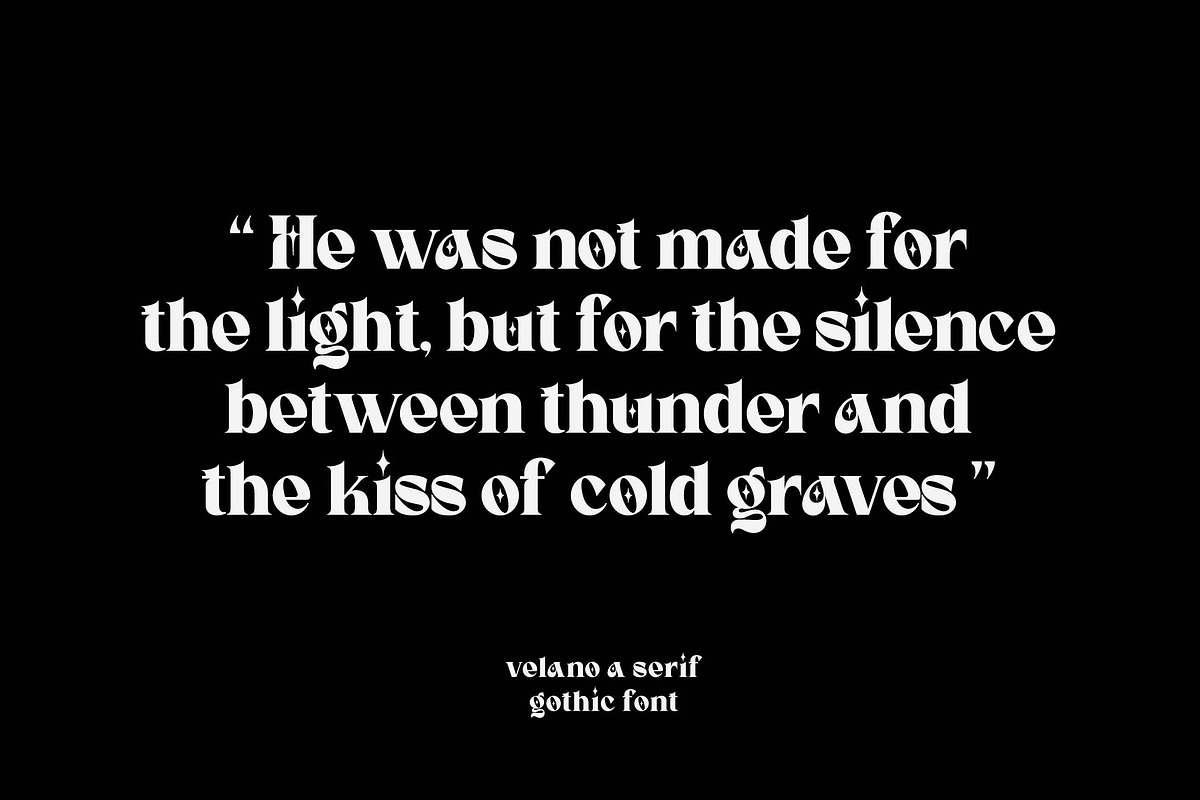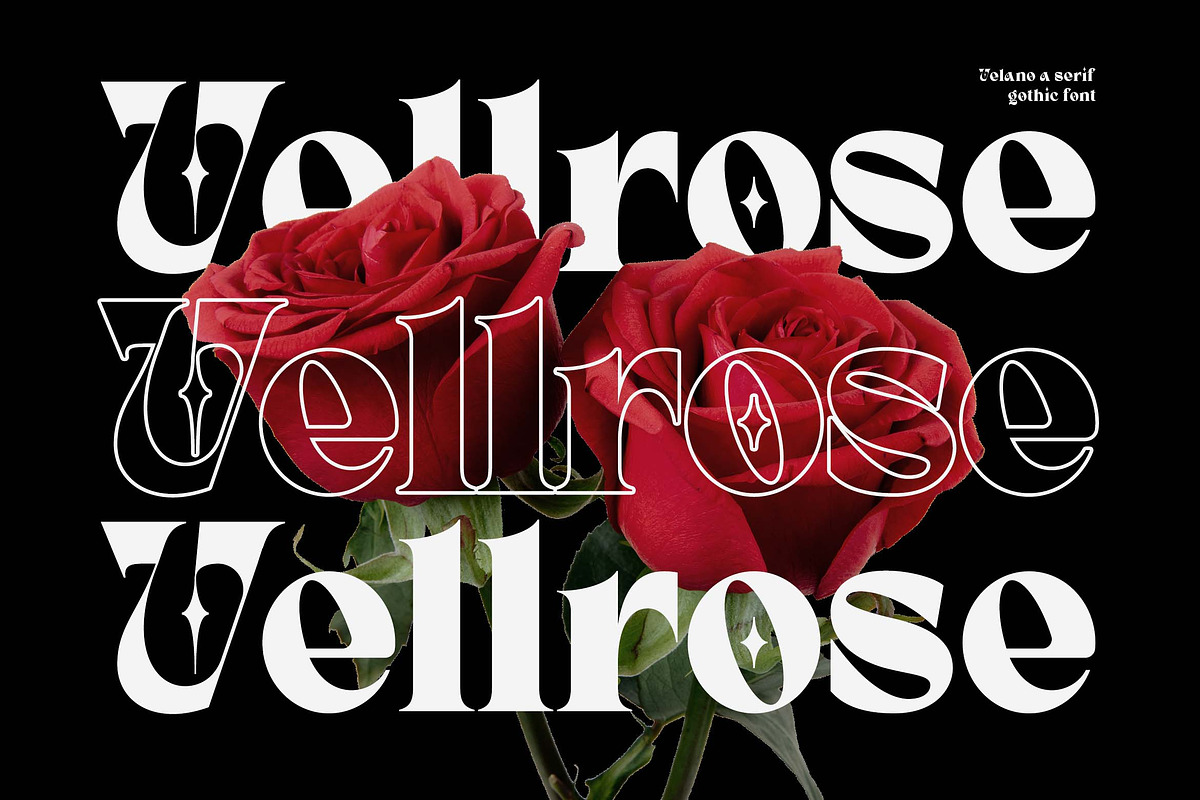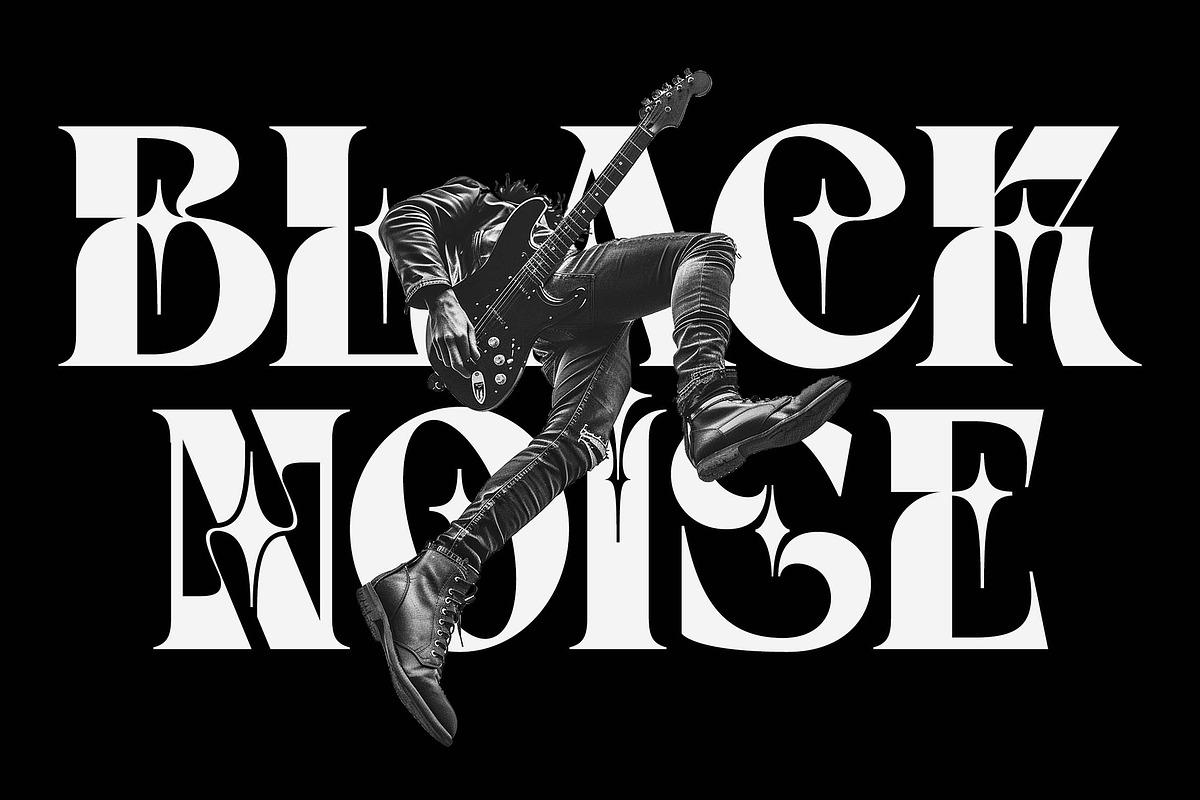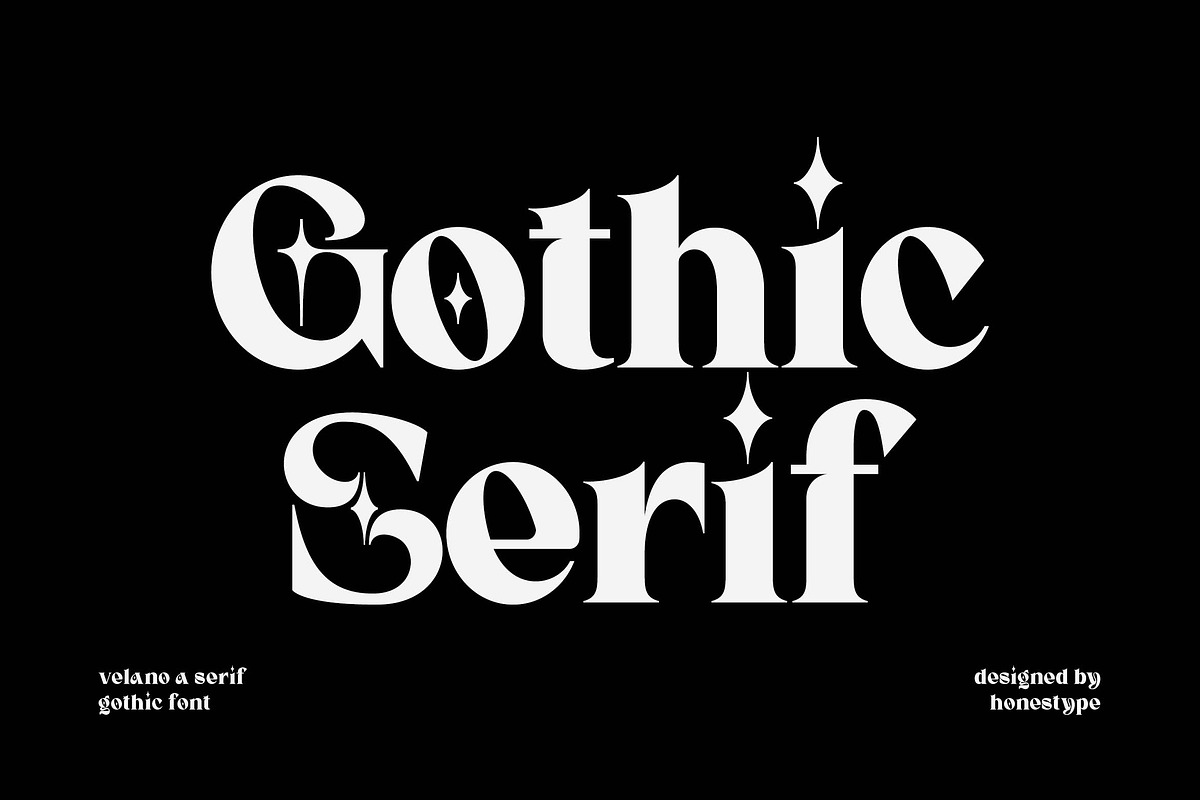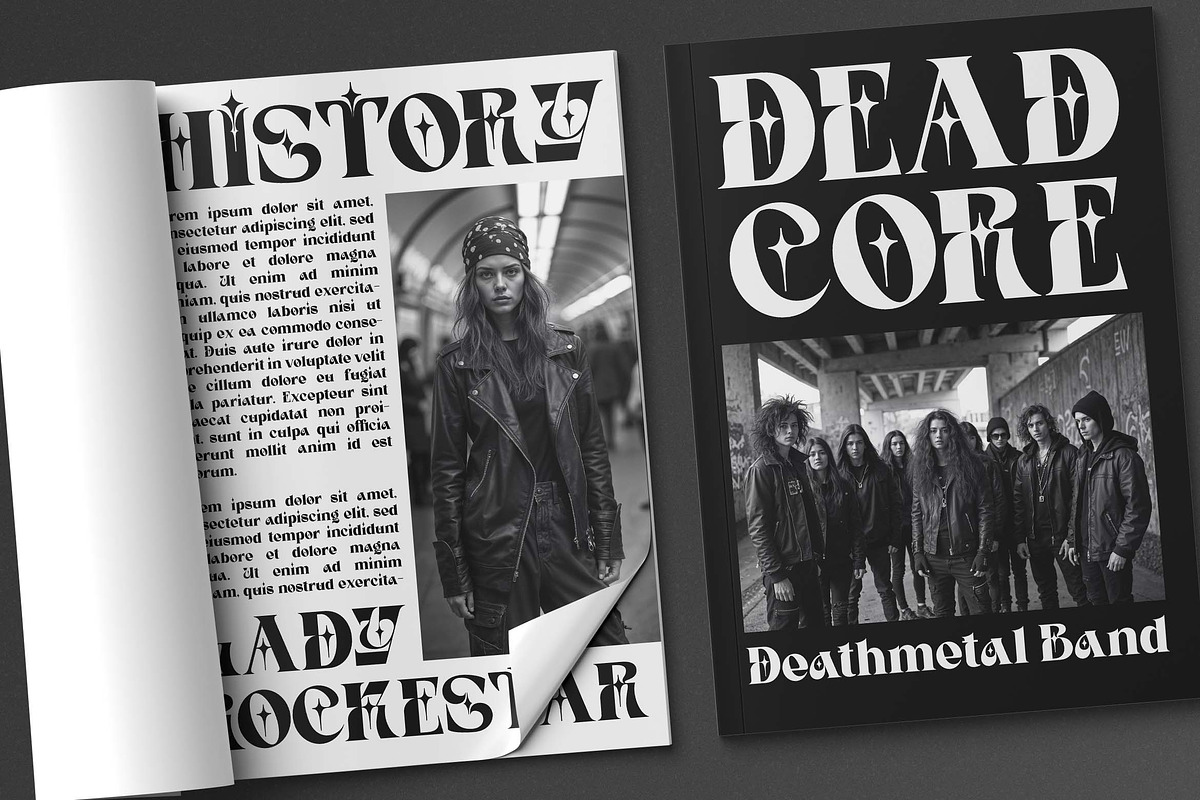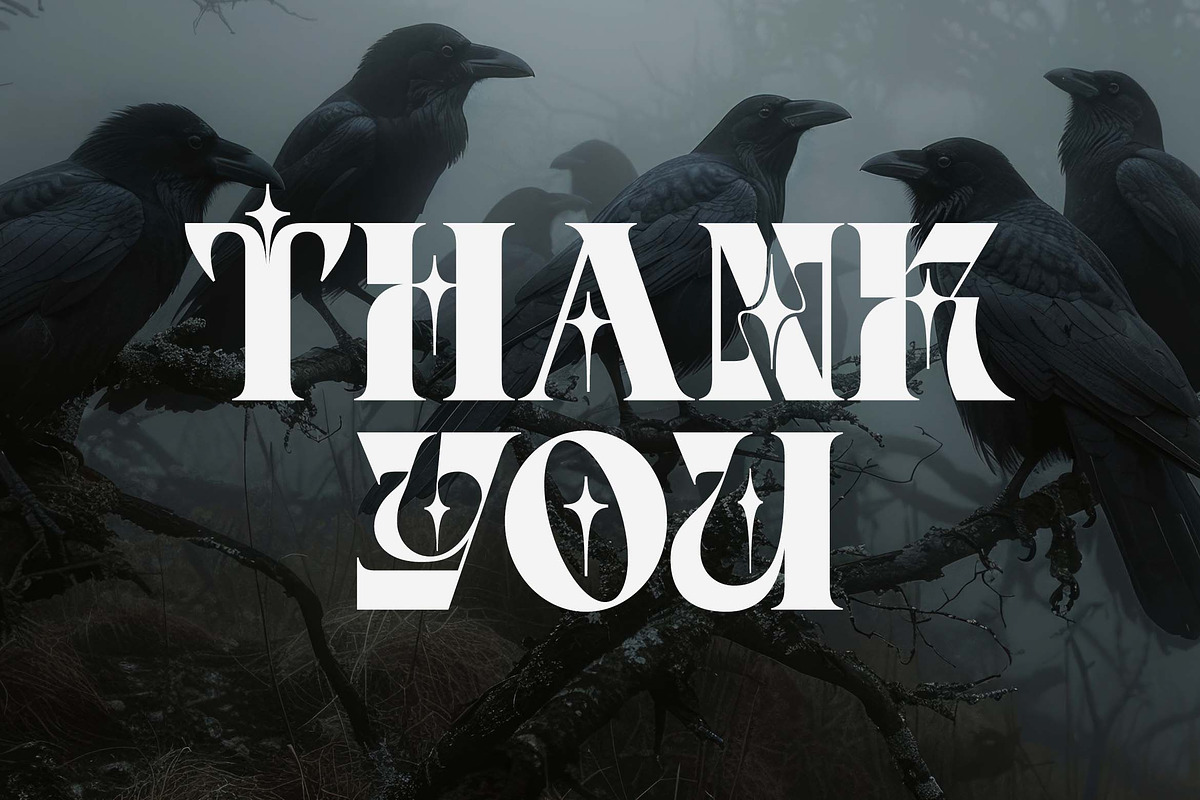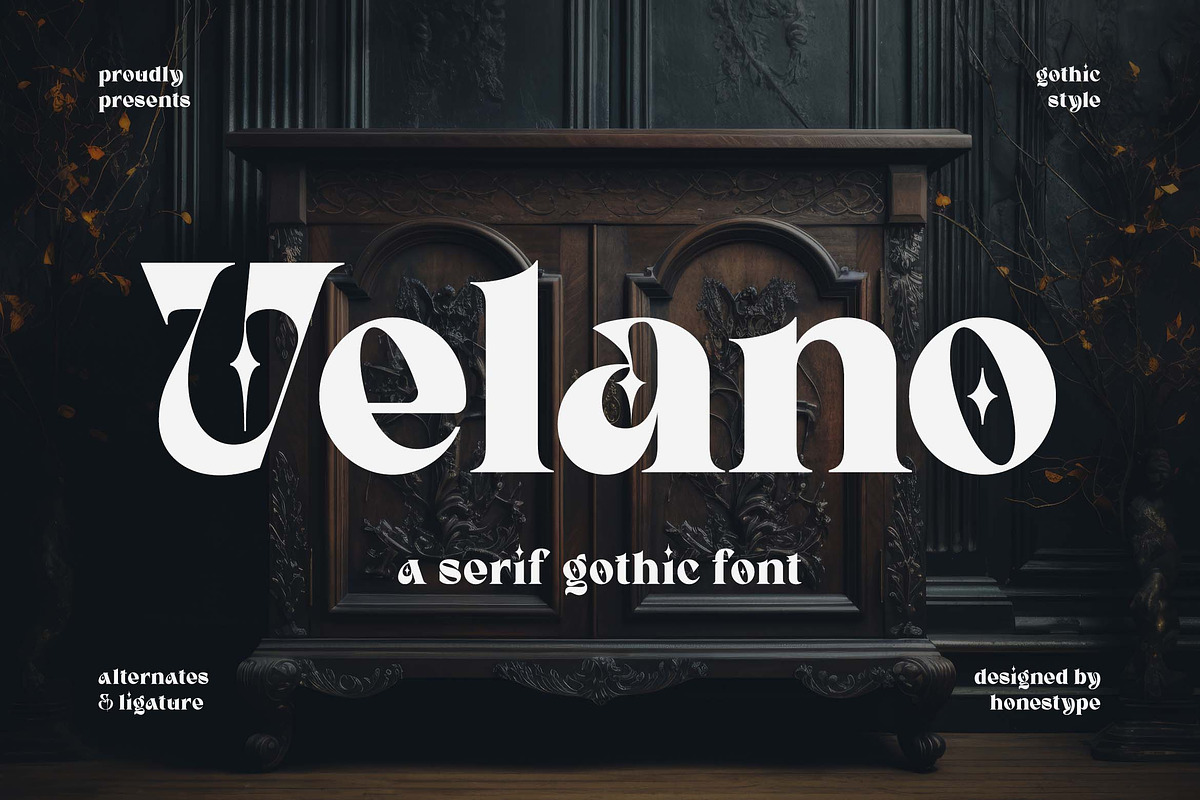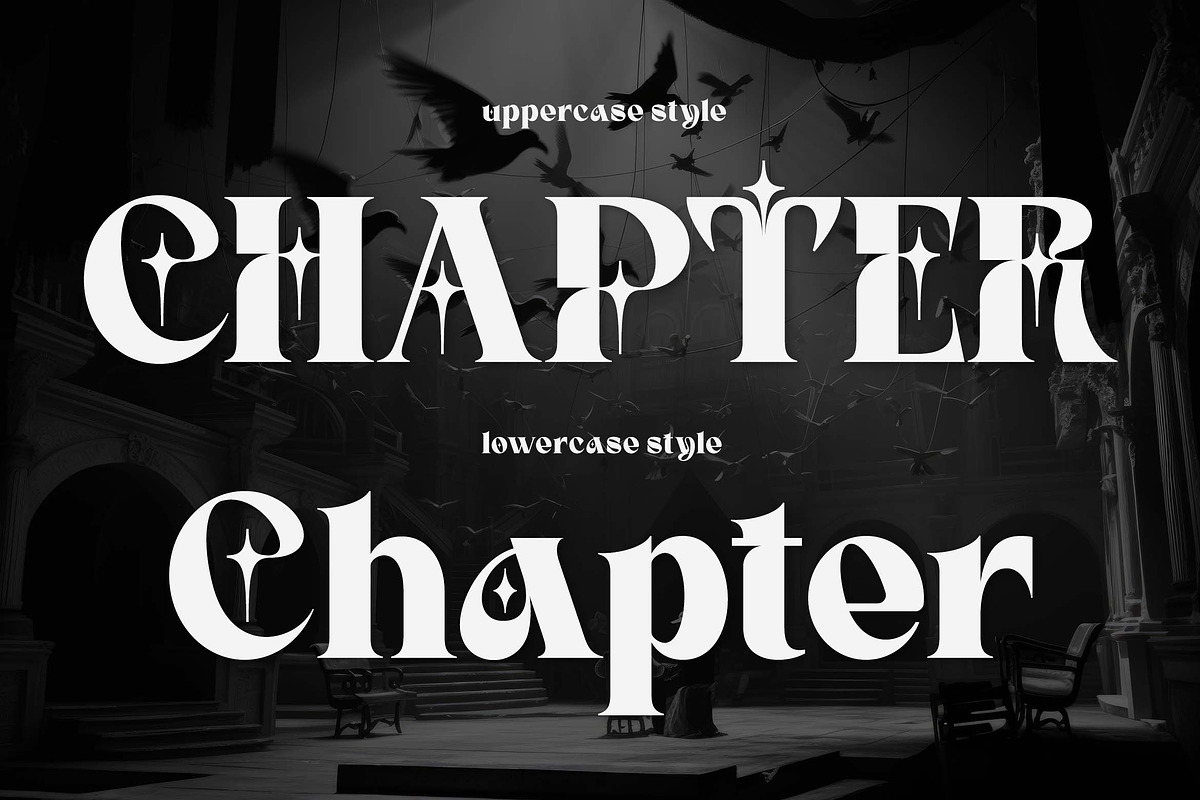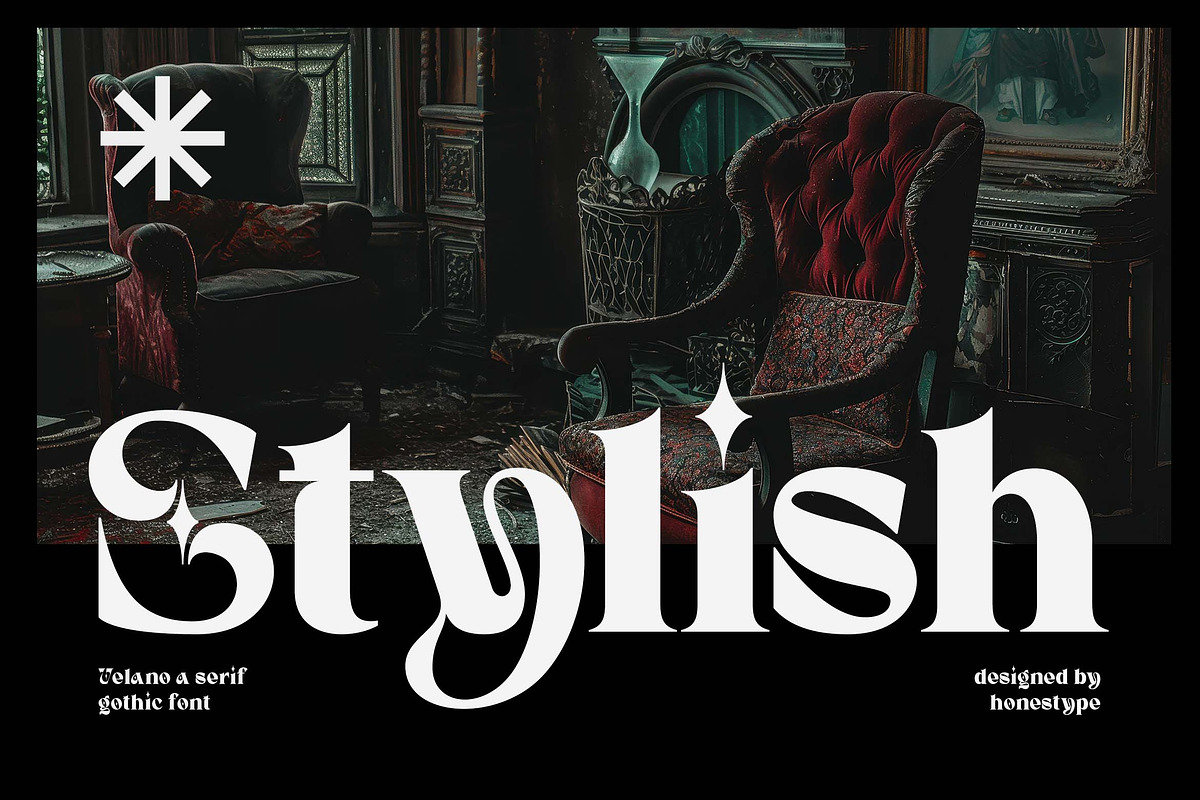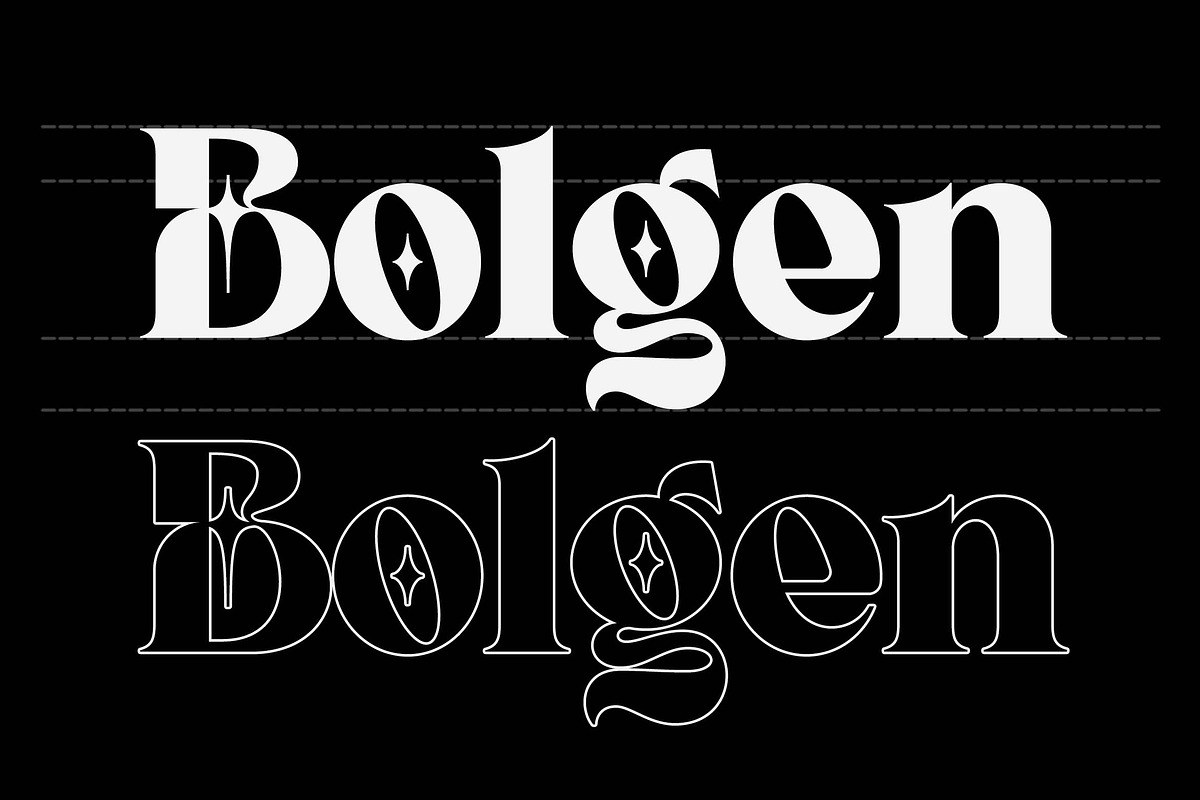
Velano a Serif Gothic Font
Hello, awesome people! This time, we have a new font called Velano a Serif Gothic Font by Blankids Studio.
Velano a Serif Gothic Font is made for any professional project branding, such as logotype, watermarks, poster, branding, promotions, product packaging, etc. Every letter has a gothic style design. This font comes in Otf. and Ttf. files.
Velano font includes a full set of ugly uppercase and lowercase letters, numerals and punctuation. This font has a gothic style. See the previews above to get some inspiration on how to use them. Happy designing!